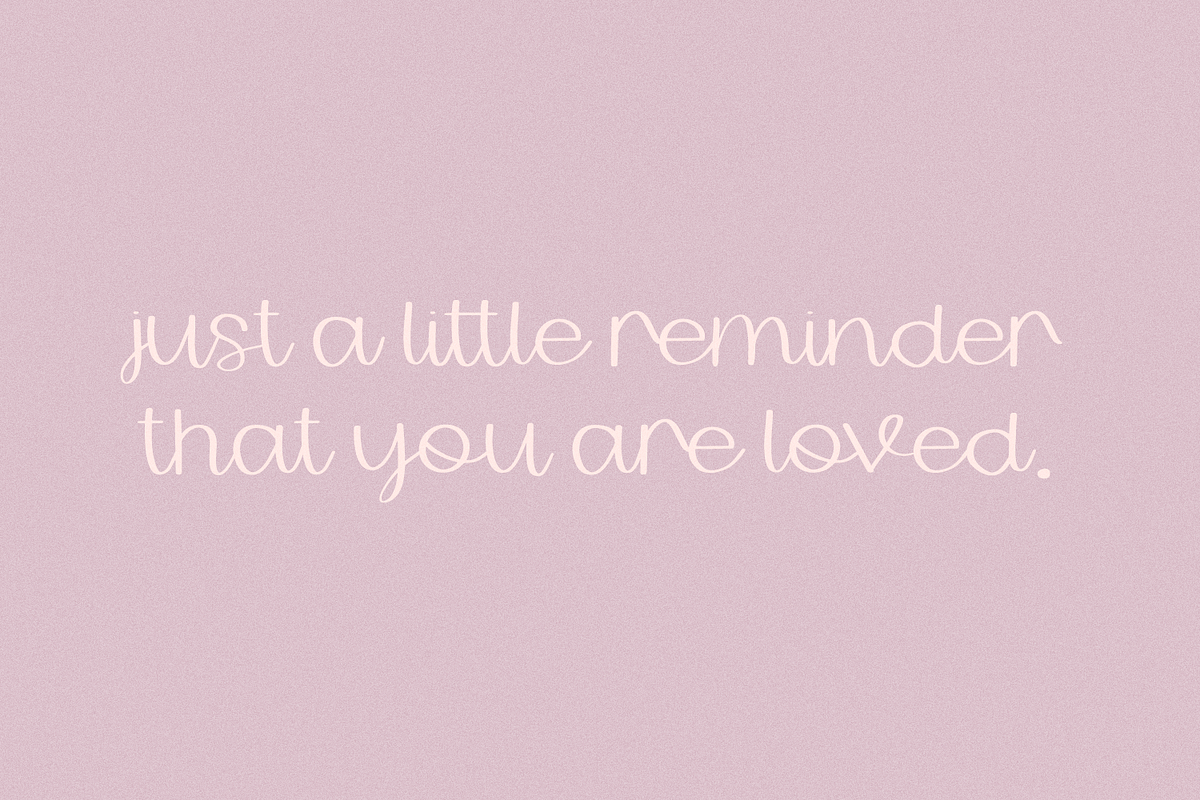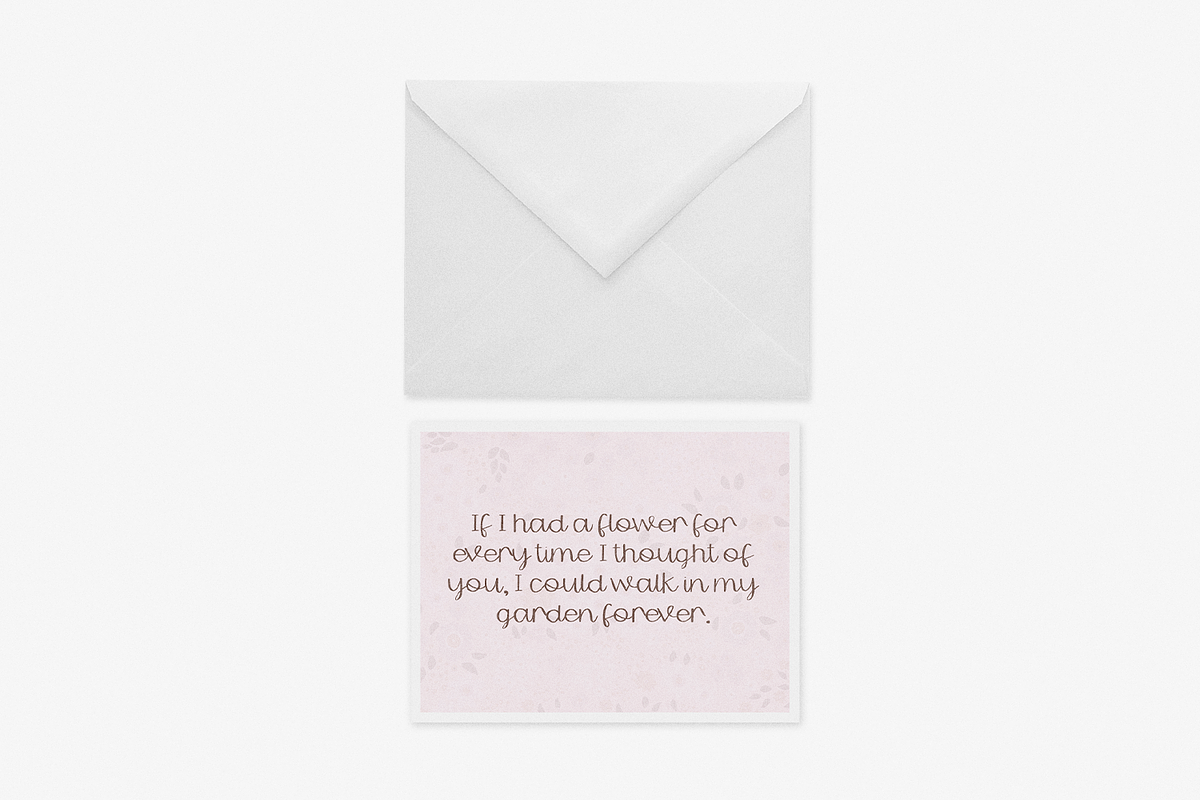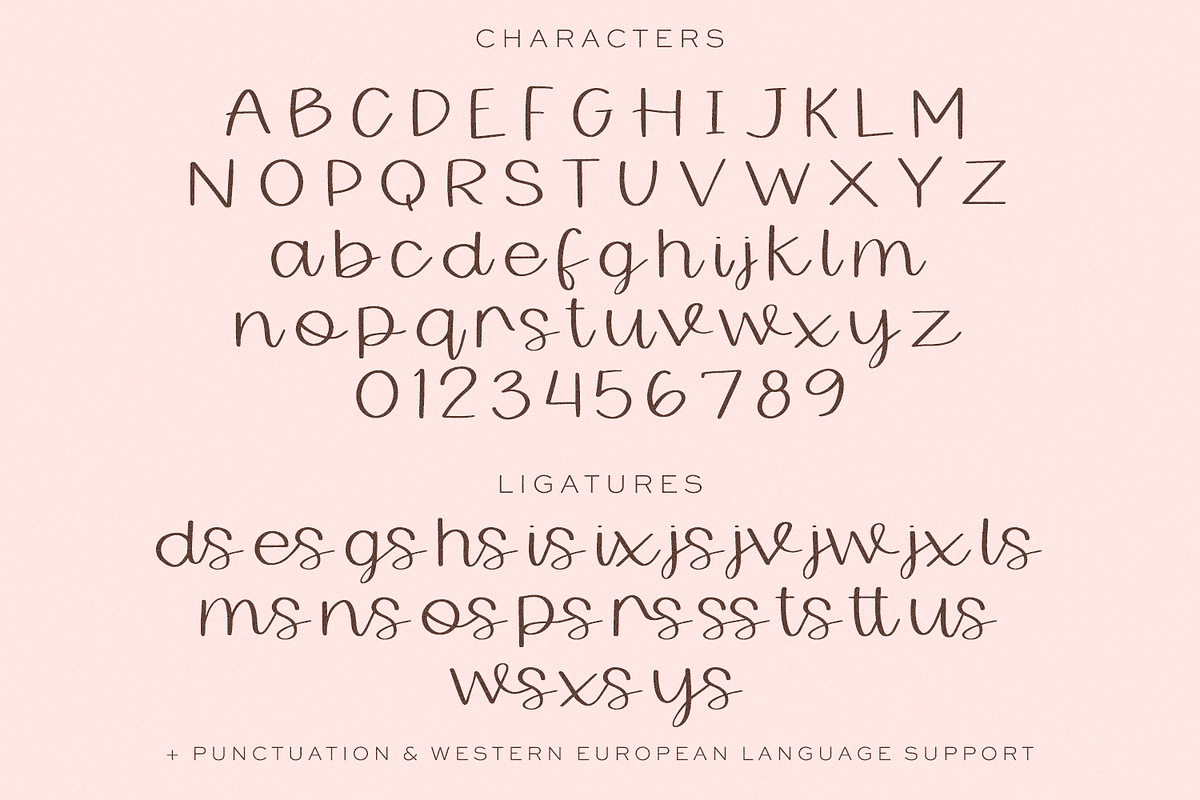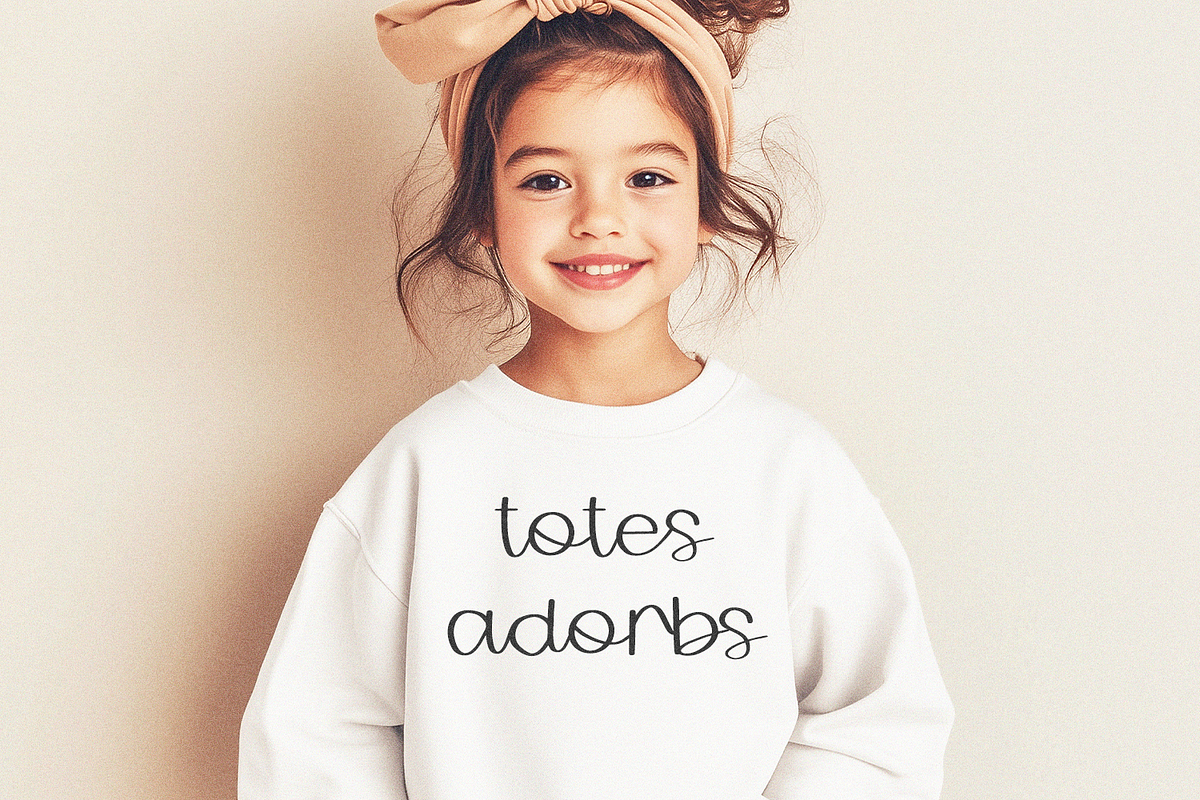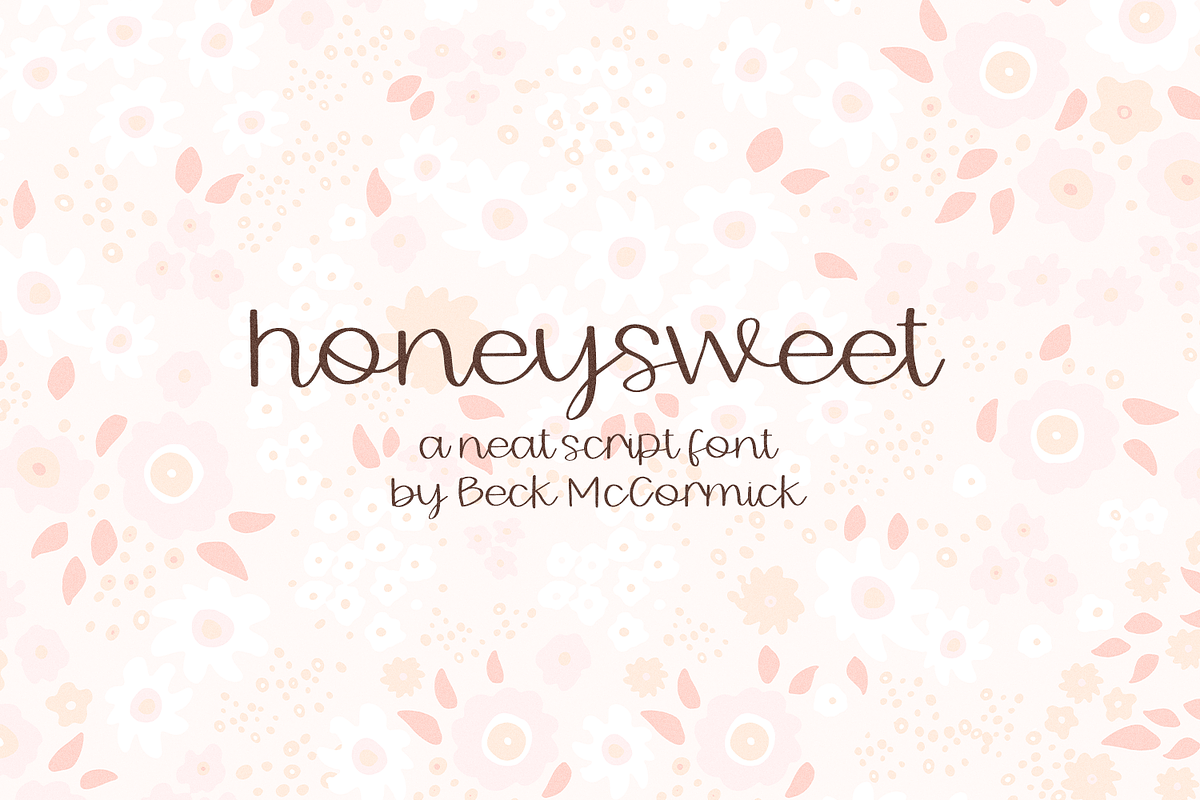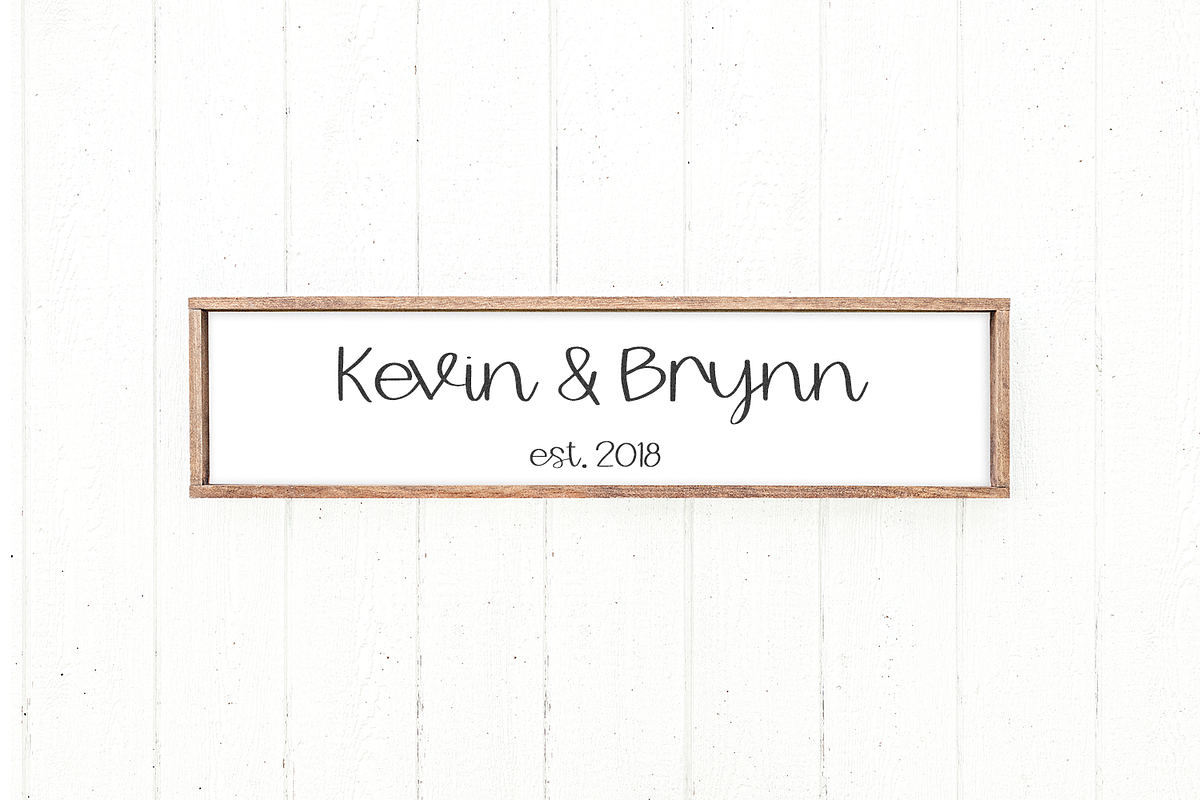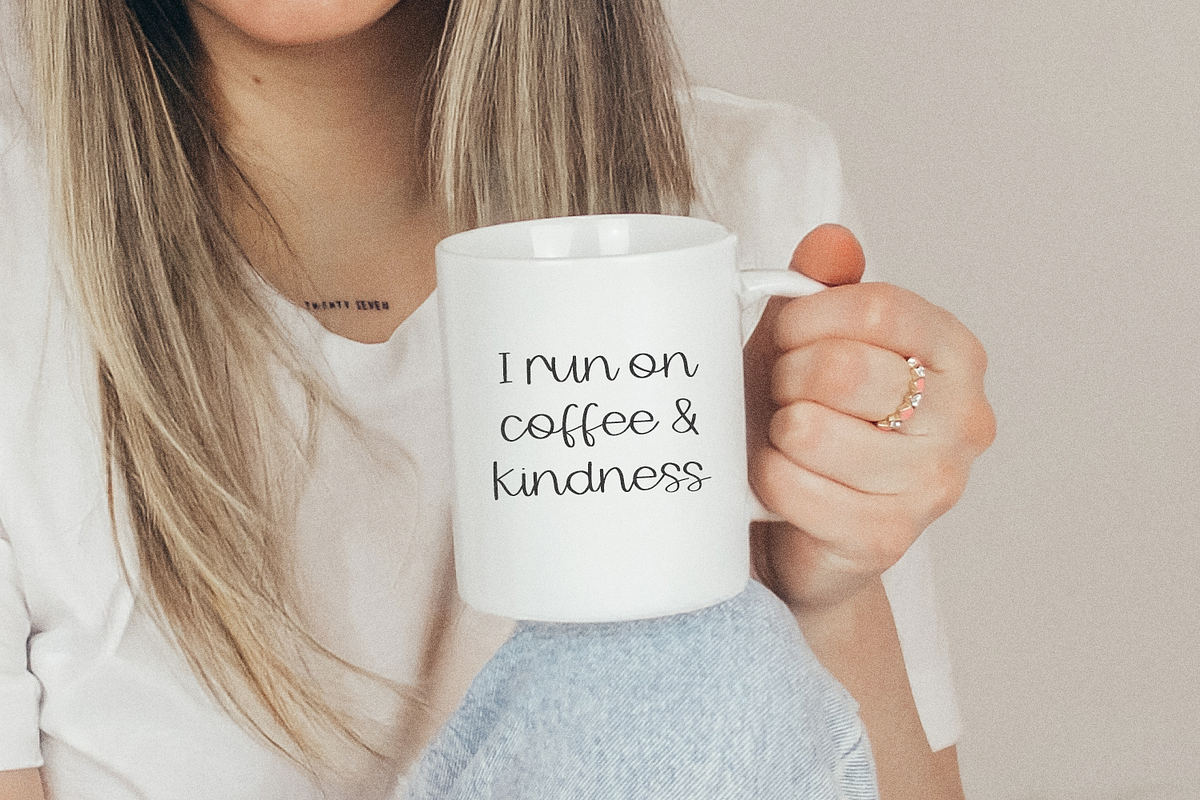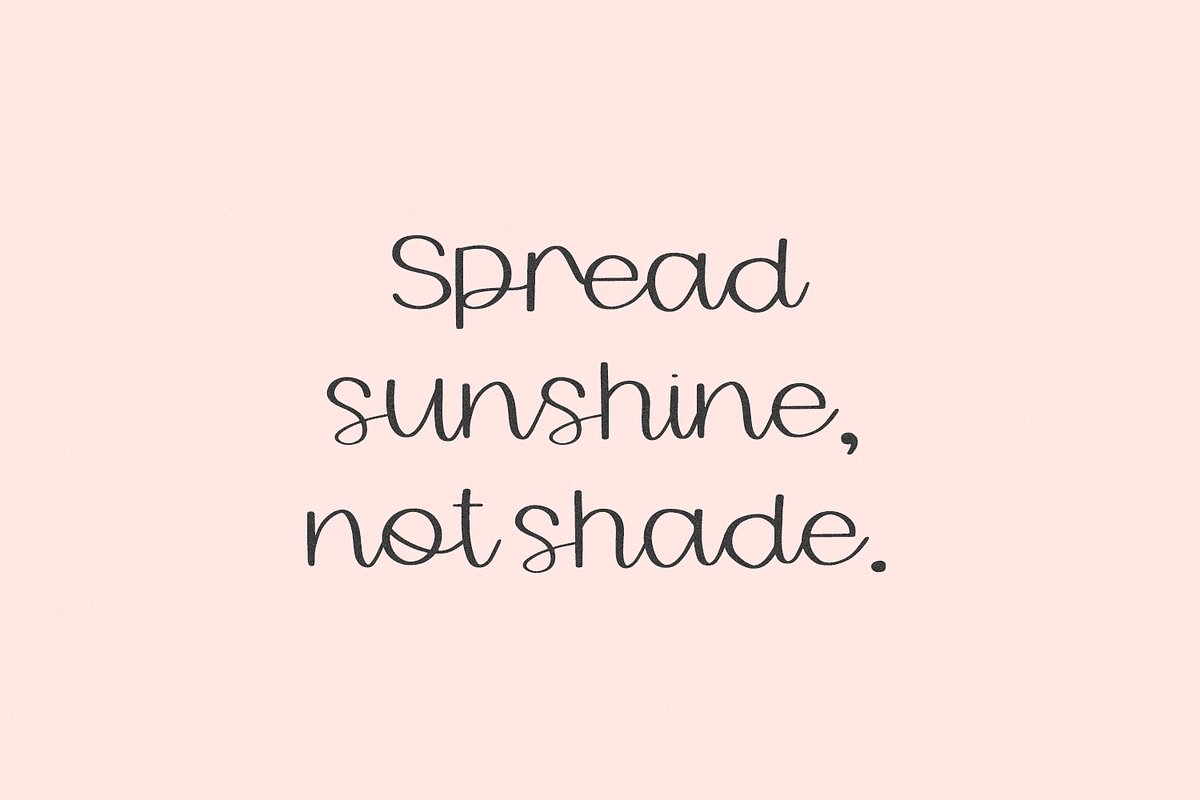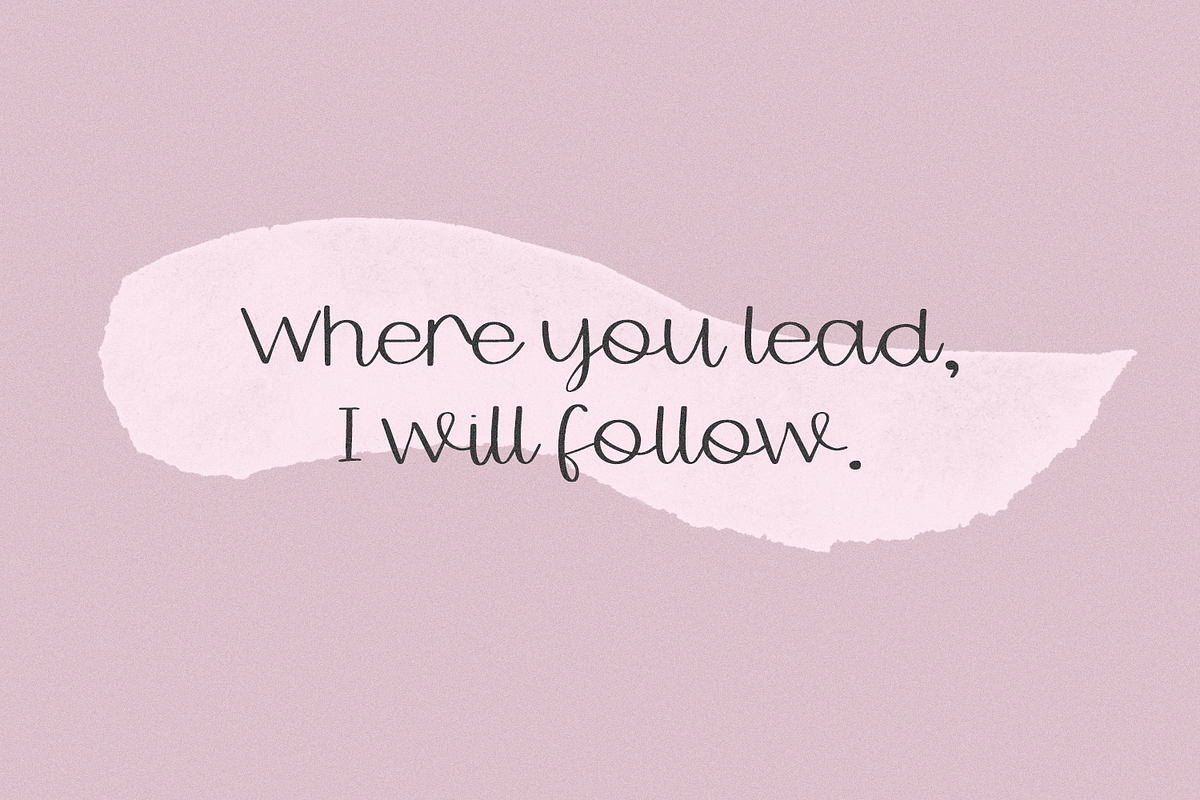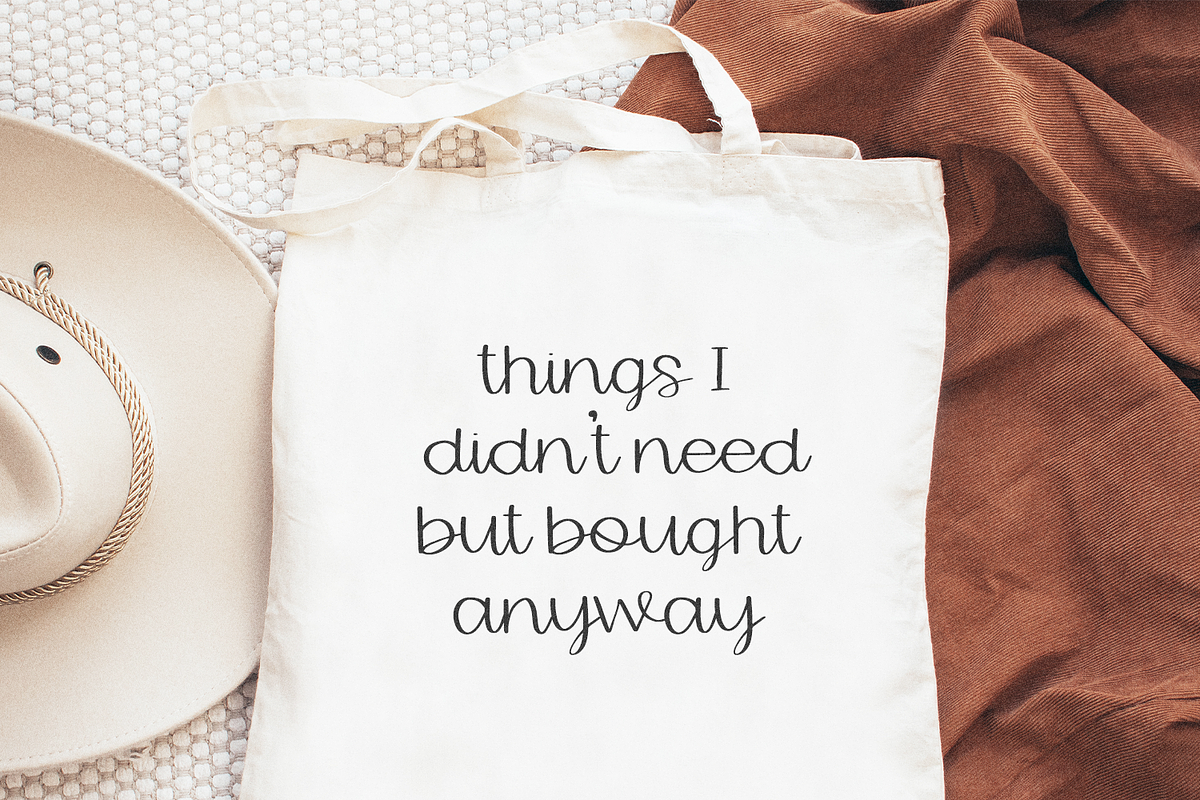
Honeysweet Script
Honeysweet Script is a clean script font. This handwriting font is cute and legible. Honeysweet is perfect for logos & branding, greeting cards, painted banners, digital planners, note-taking apps, Canva, Cricut projects, Silhouette projects, designing SVG files, laser cutting projects, & more.
Honeysweet includes:
- full upper + lowercase characters
- numbers + punctuation
- 23 ligatures - ds, es, gs, hs, is, ix, js, jv, jw, jx, ls, ms, ns, os, ps, rs, ss, ts, tt, us, ws, xs, ys
- Western European language support - English, French, Spanish, Portuguese (Brazil), Portuguese (Portugal), Italian, German (Germany), German (Austria), Dutch, Danish, Swedish, Norwegian (Bokmål and Nynorsk), Finnish, Icelandic, Irish, Welsh